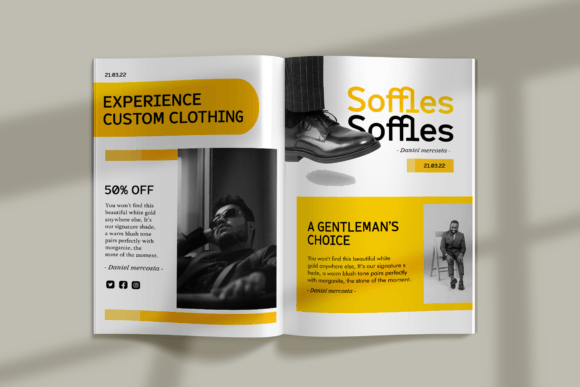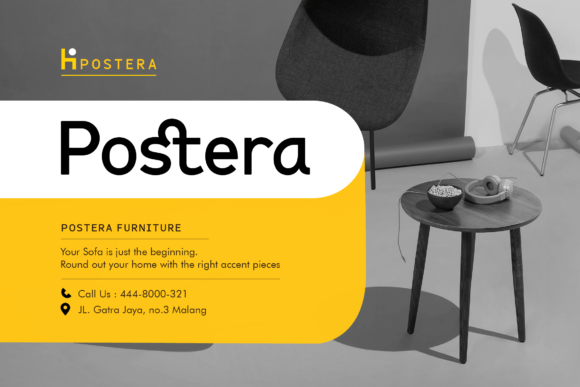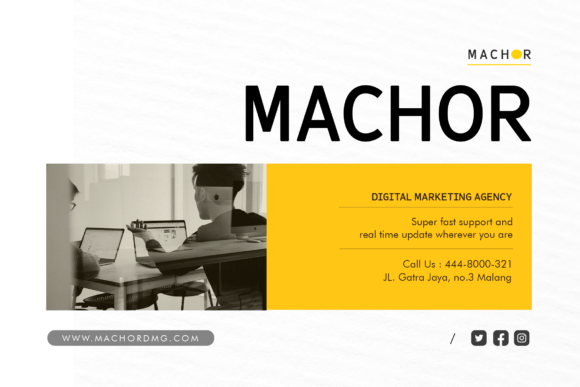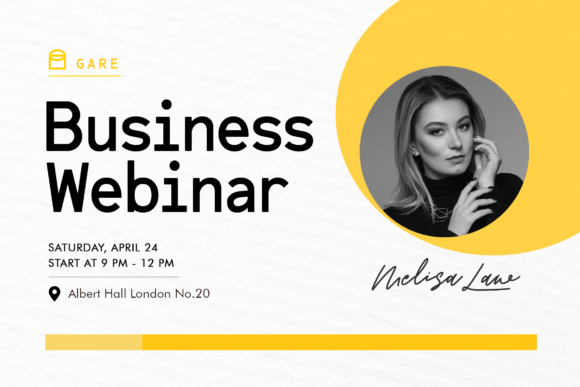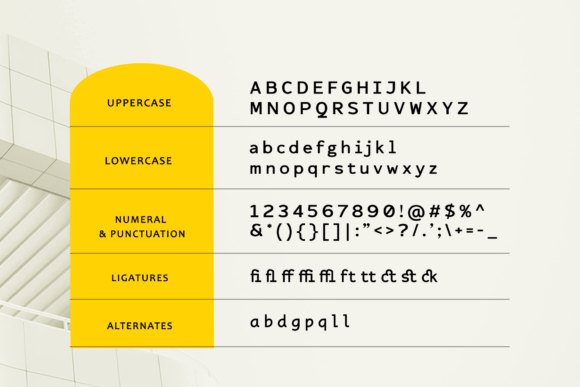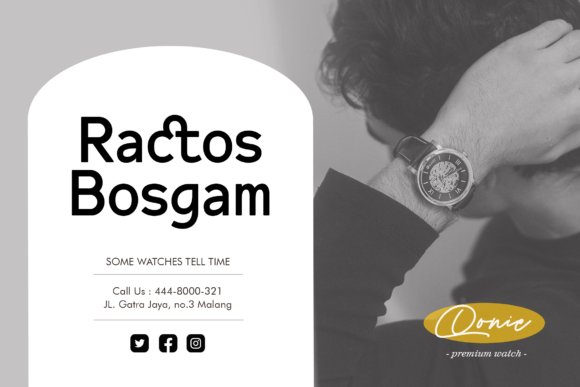
Introduction to Morequiet Font
Have you ever found yourself stuck in front of a blank page, struggling to find the perfect font to bring your creative project to life? It’s a moment we’ve all experienced as designers – the blank slate staring back at us, begging for inspiration. For some, it’s the perfect opportunity to experiment and try out new designs, but for others, it can be a source of frustration.
That’s why we’re excited to introduce the Morequiet Font, a modern monospace sans serif font that’s sure to breathe new life into your designs. With its clean, minimal aesthetic and versatility, this font is the perfect design resource for any project. Whether you’re working on a classic logo, editorial design, or advertising campaign, the Morequiet Font is sure to deliver high-quality results.
Key Features of Morequiet Font
- Morequiet Font is designed to be versatile and can be used for a wide range of creative projects, from logos to typography-based designs.
- Unique characteristics include a modern and elegant design, with clean lines and subtle details that make it perfect for branding and advertising.
Honest Review: Morequiet Font
As a designer, I’m always on the lookout for high-quality design resources to elevate my creative projects. Recently, I stumbled upon the Morequiet Font, and I’m excited to share my thoughts on it.
- ✨ The Morequiet Font is incredibly versatile, suitable for a wide range of design projects, from logos to digital interfaces.
- ✨ The font’s high-quality design ensures that it renders smoothly on various devices, including those with transparent backgrounds.
- ⚠️ The font’s character set is somewhat limited, which might be a concern for designers working on projects that require a wide range of characters.
Overall, I’m impressed with the Morequiet Font’s potential. While it may not be perfect, it’s a solid addition to any designer’s arsenal. With a little creativity, it can help take your design projects to the next level.
Tips for Getting the Most Out of Morequiet Font
To get the most out of Morequiet Font, experiment with different font sizes, colors, and styles. You can also combine it with other design elements, such as images and graphics, to create a unique and eye-catching design. With its free download and high-quality design, Morequiet Font is an excellent resource for designers and non-designers alike.